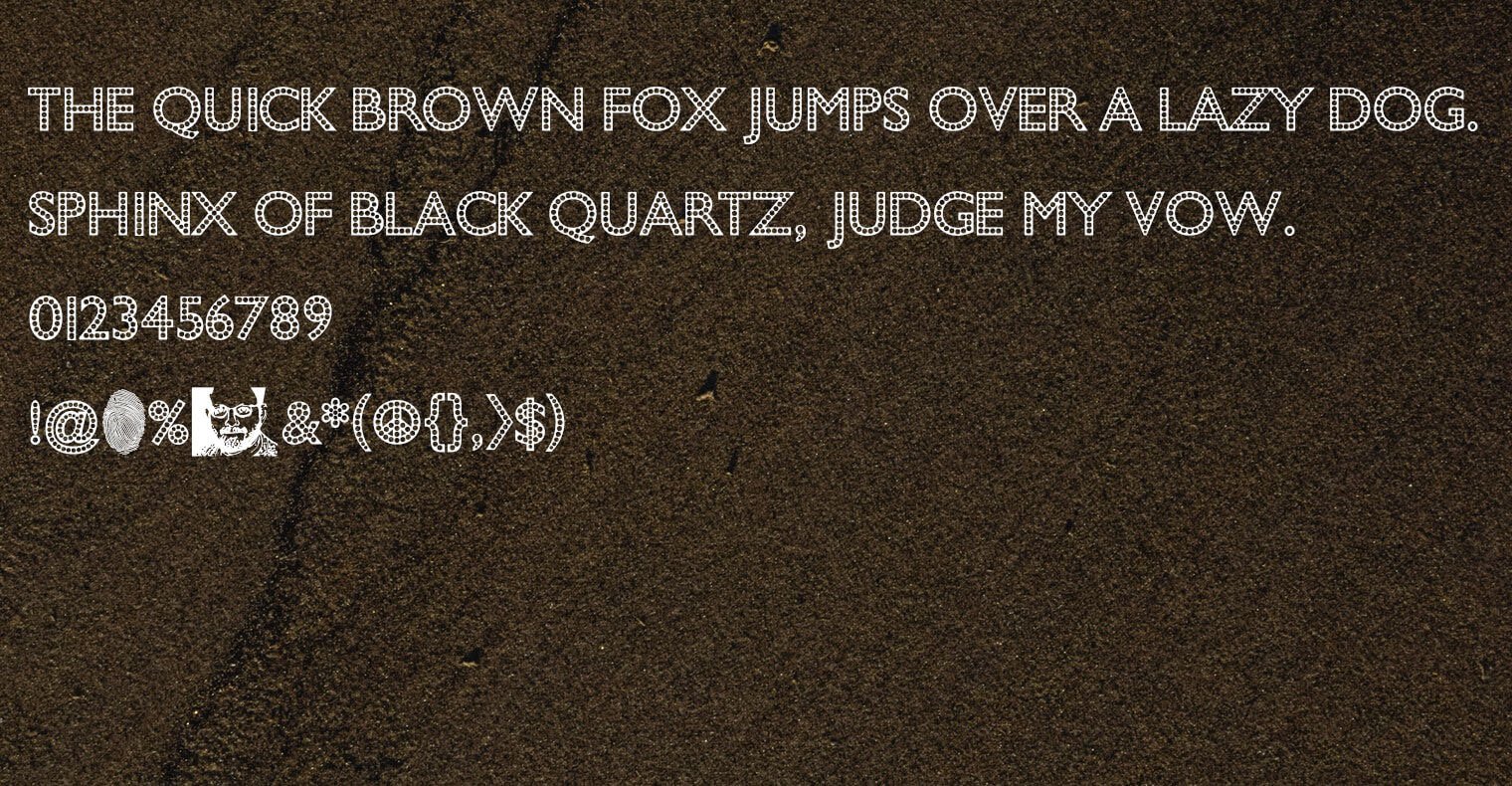
We will start the details about a very gorgeous 3D display typeface that is named Marquee Font. The designer of this stylish font is Daniel Pelavin, who has released this font in the year of 2010.
Font Information
Name | Marquee Font |
Designer | Daniel Pelavin |
Style | Display |
Marquee Font Family (Includes 2 Typeface)
- Marquee Regular
- Marquee Italic